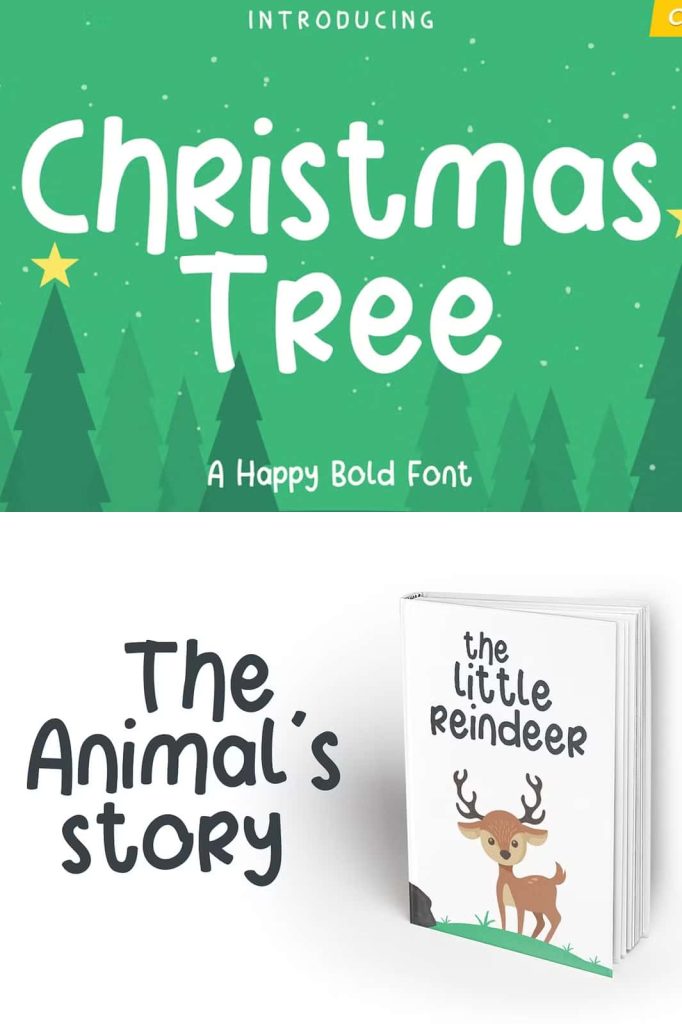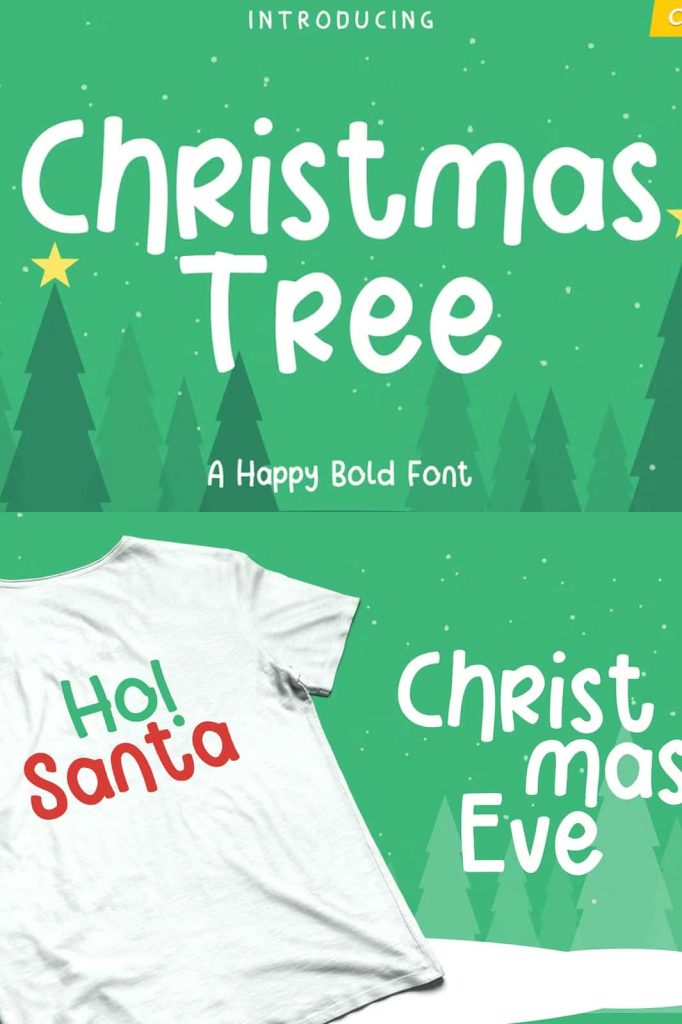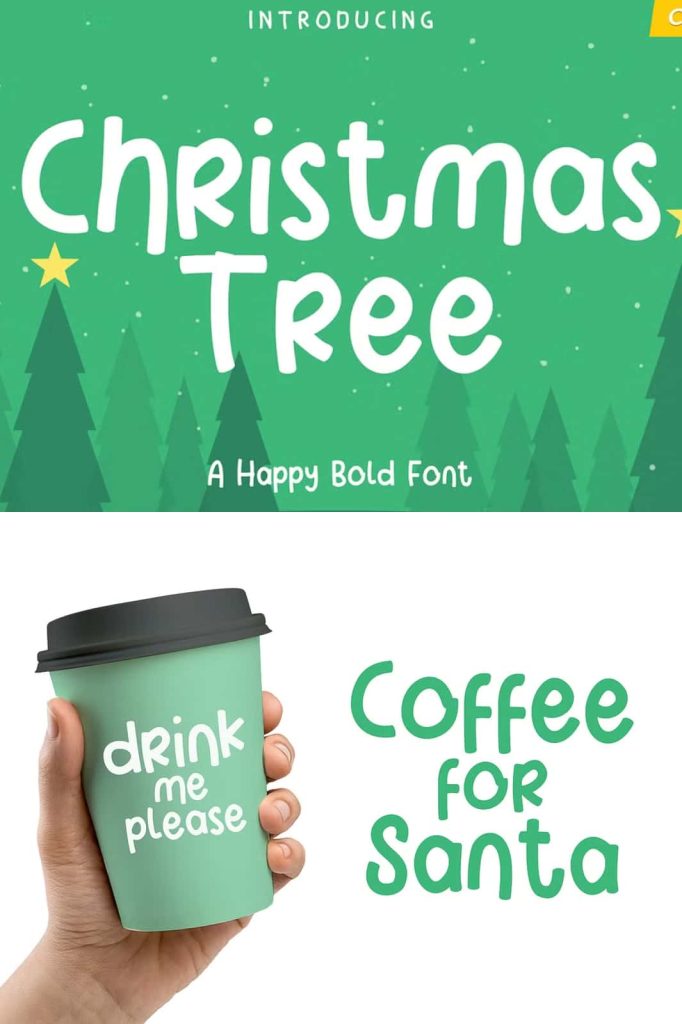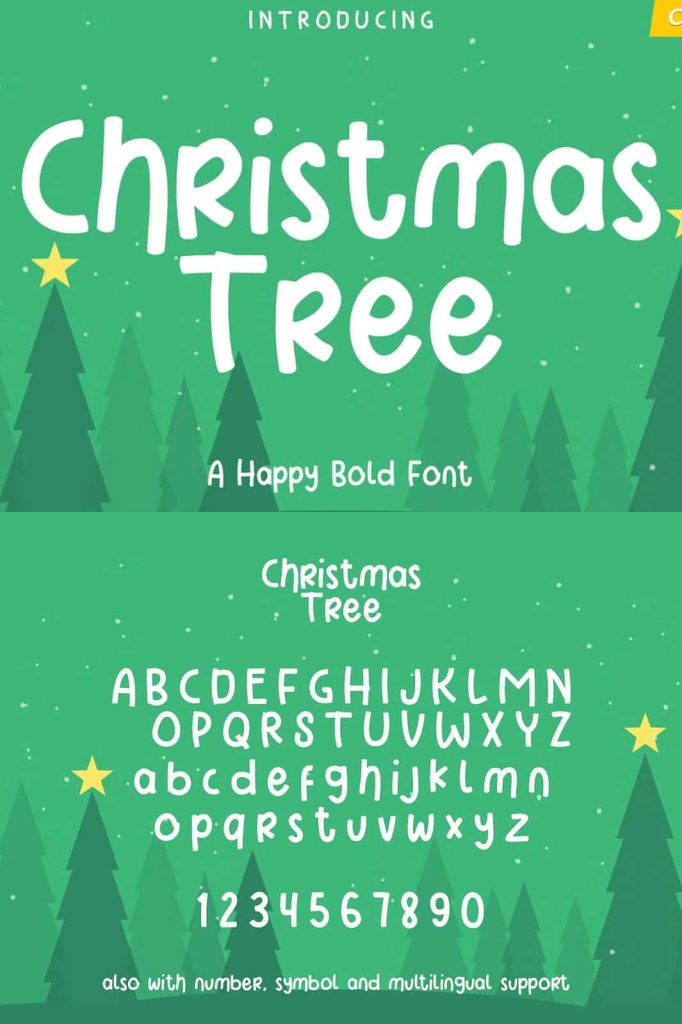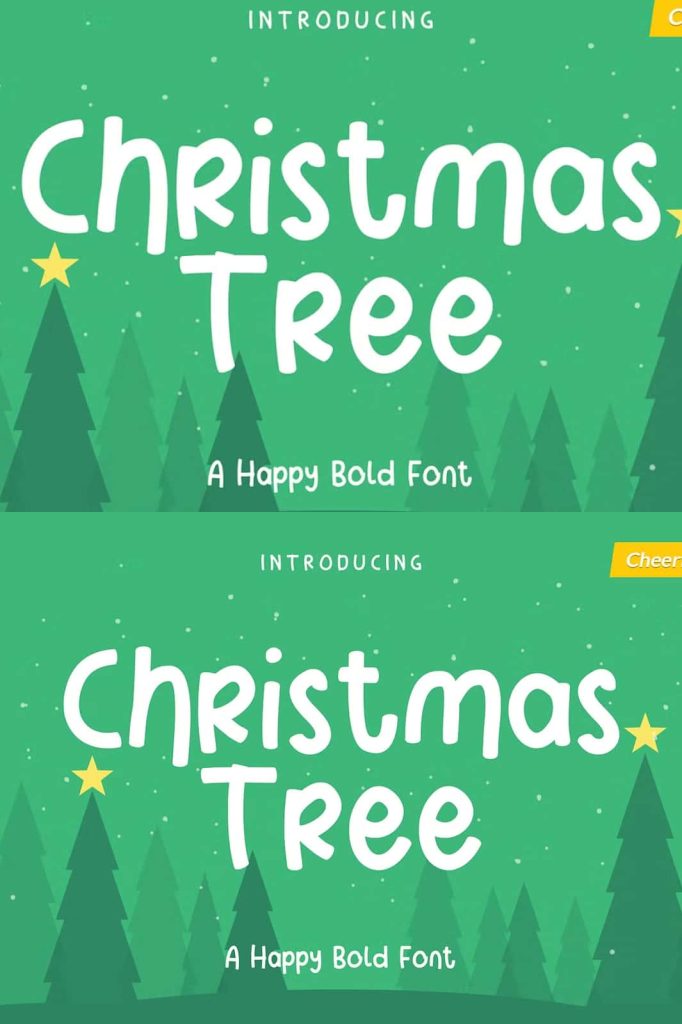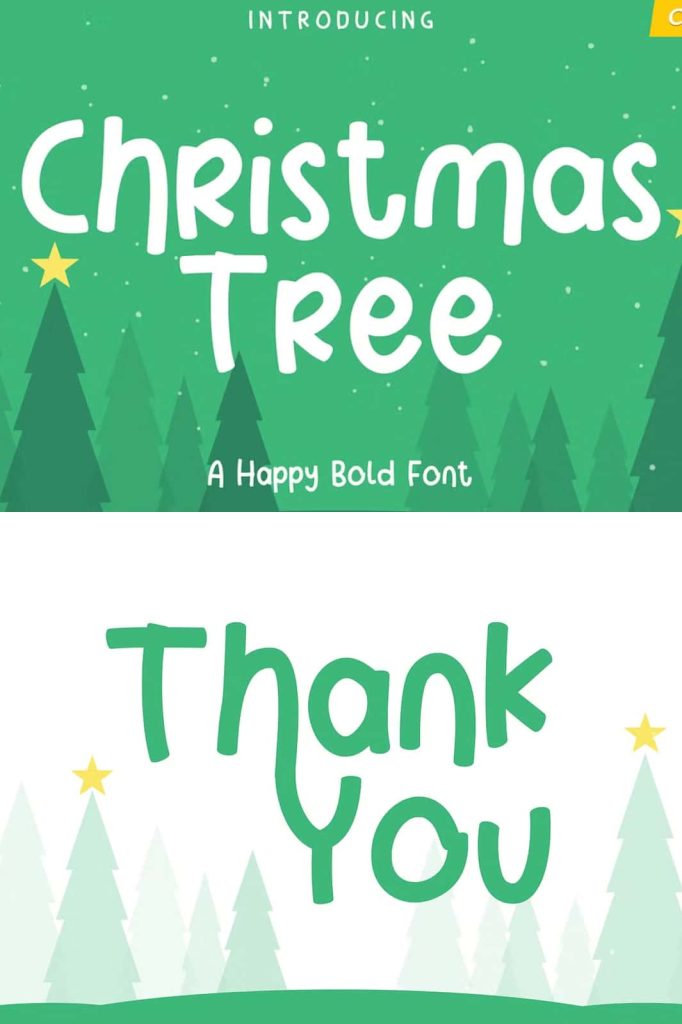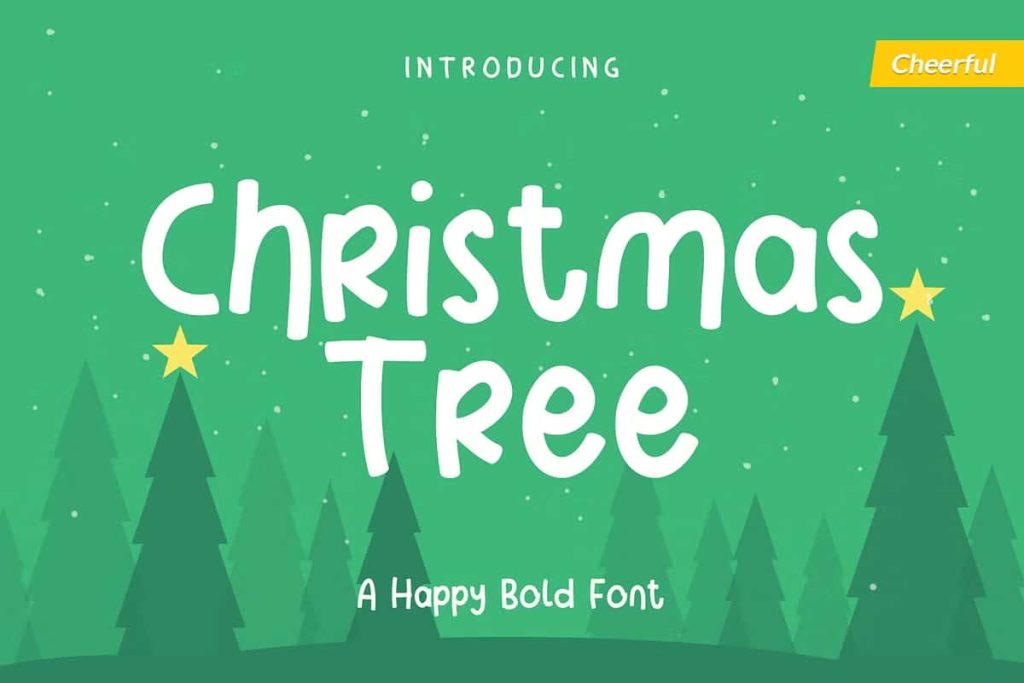
Christmas Tree Happy Cute FontleastedDecember 27, 2024Fonts Christmas Tree is playful display font, perfect theme for your christmas and holiday, it gives happiness to your designs Download